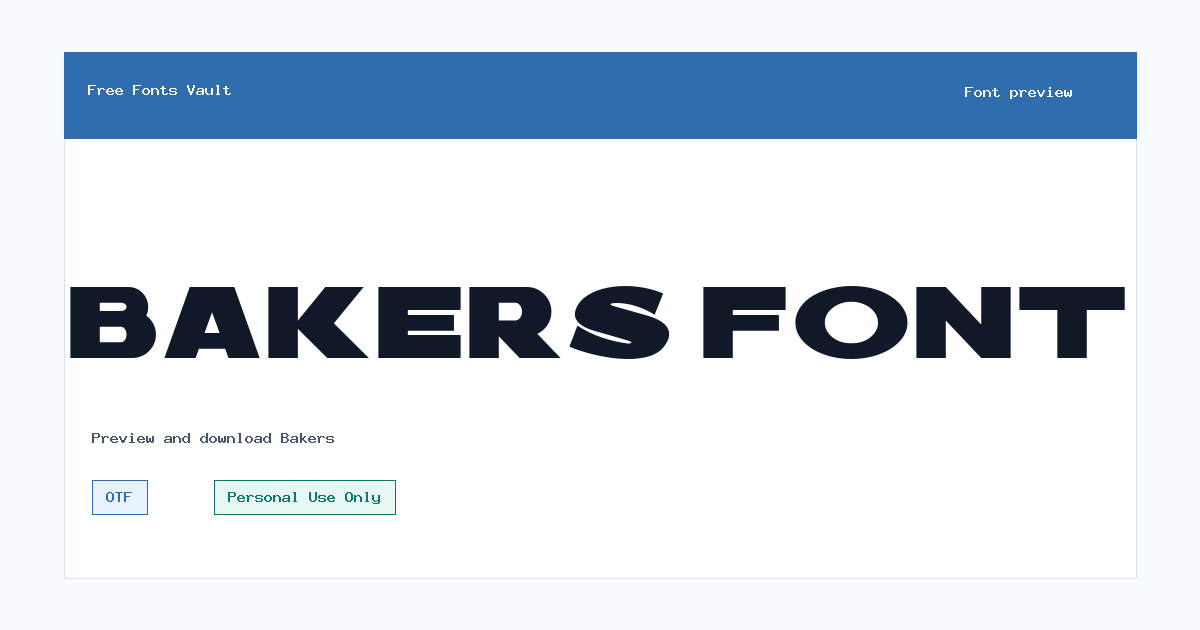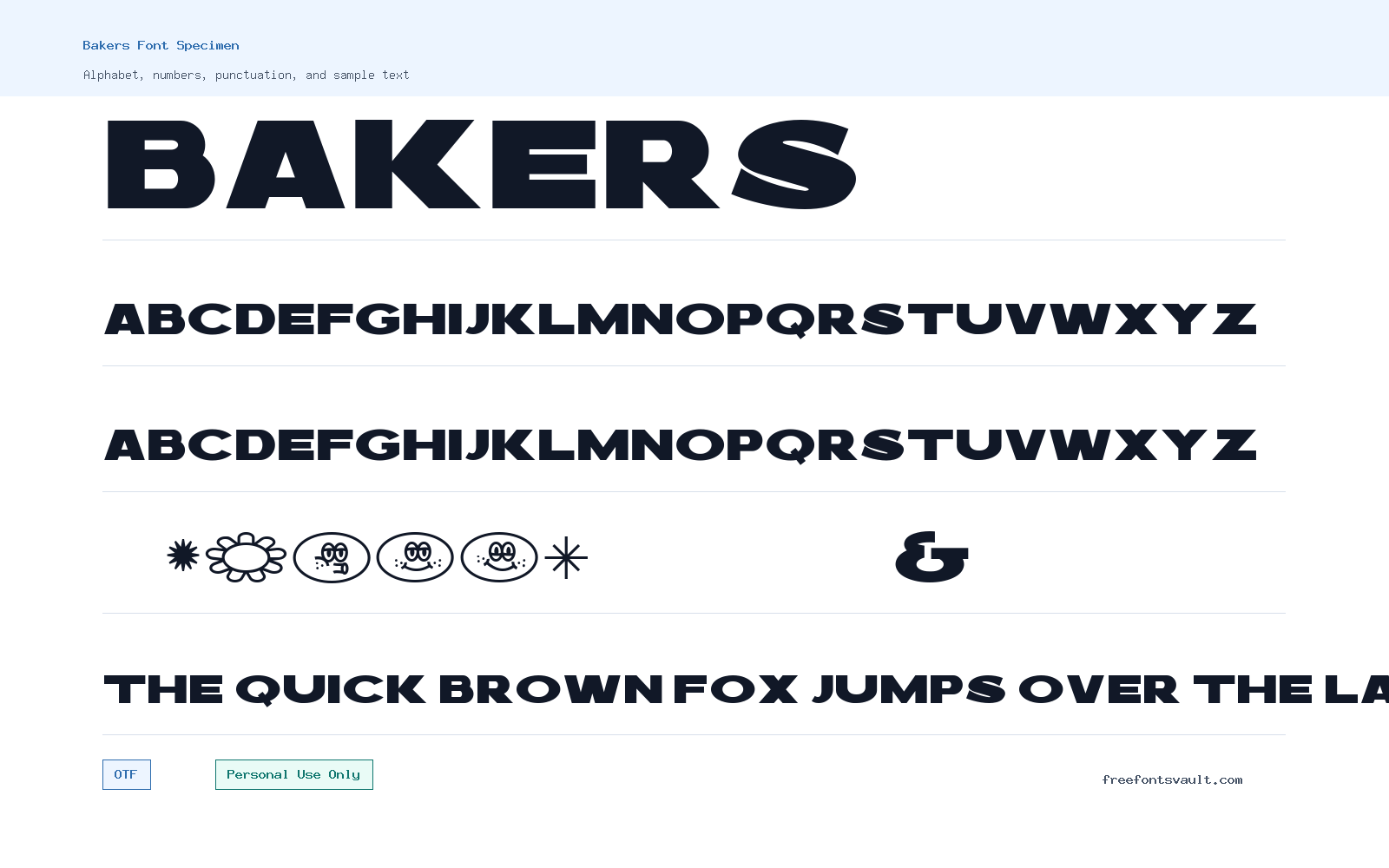
Bakers
Bakers font preview showing the family name
Bakers font specimen showing alphabet, numbers, and sample text
Bakers is a personal-use sans serif font from Hishand Studio. It is a simple choice to test when you need clean lettering for display text, headings, previews, or short design mockups.
About Bakers Font
Bakers is listed as a sans serif font, with one regular OTF file included for preview and download. The family name is direct and easy to use in design files, and the regular weight makes it best suited for quick testing in titles, labels, social graphics, and other short text settings. Since there is only one available style, it is better to treat Bakers as a focused display option rather than a full text family with multiple weights.
Use the preview box to check how Bakers handles the exact words you plan to set. Try uppercase and lowercase letters, punctuation, numbers, and brand or project names before downloading. If you want to use it in a poster, logo draft, packaging mockup, or website concept, test it at the size you expect to use. A single regular style can work well for clean headings, but it may need support from another font for body copy, captions, or dense paragraphs.
• Sans serif style with a regular 400 weight
• Headings, title text, labels, and short display lines
• Personal mockups, social posts, invitations, and preview designs
Who designed Bakers?
Bakers is credited to Putu Dody Permana, with Hishand Studio listed as the foundry.
What kind of projects is Bakers good for?
Bakers is best tested for short text such as headings, display lines, labels, personal graphics, and mockups. For longer paragraphs, pair it with a separate body font and check readability carefully.